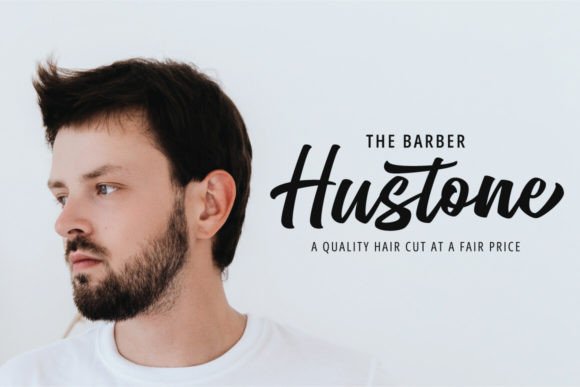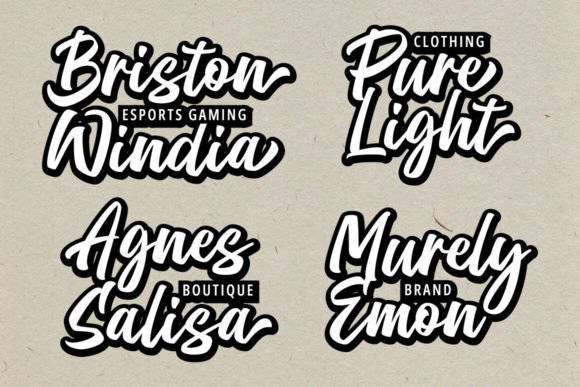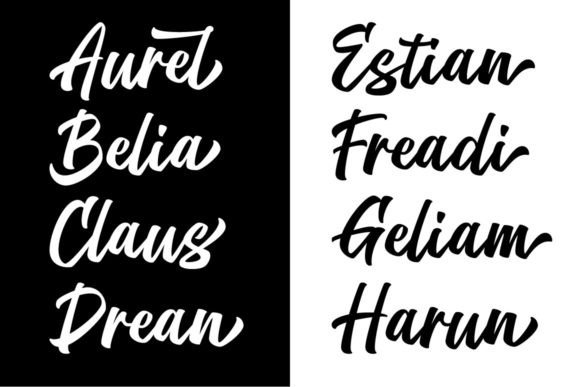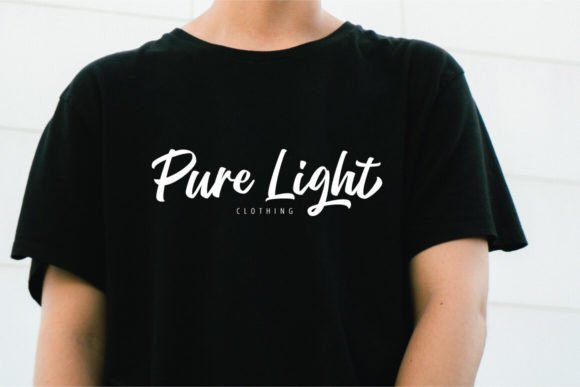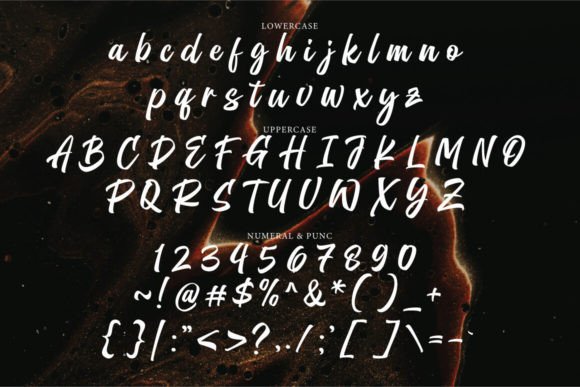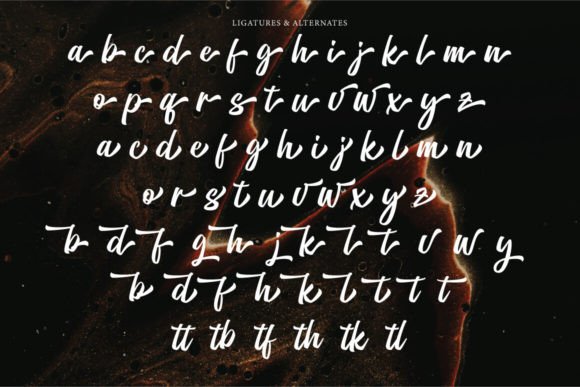
Introducing Erival Script Font: Elevate Your Designs with Modern Flair
In the world of typography, fonts play a crucial role in conveying the tone and personality of a design. For designers and crafters looking to add a touch of modern fashion and streetwear to their projects, Erival Script Font is an excellent choice. This unique font draws inspiration from the latest trends in fashion and streetwear, blending them with a distinctive hand-lettering style to create a truly eye-catching effect.
The Unique Features of Erival Script Font
Erival Script Font stands out from the crowd with its lively baseline, which adds a dynamic touch to any design. This feature alone sets it apart from more traditional fonts, giving it a youthful and energetic vibe that’s perfect for brands and designers looking to make a statement. But that’s not all – Erival Script Font also comes with a matching marker font and a set of extra swashes, providing users with a wealth of creative possibilities.
Whether you’re working on a logo, quote, packaging, header, poster, merchandise, social media post, or greeting card, Erival Script Font is an excellent choice. Its versatility and unique style make it suitable for a wide range of design projects, from fashion and lifestyle brands to craft and DIY applications. The font’s modern and trendy feel ensures that your designs will stand out in a crowded market, grabbing the attention of your audience and leaving a lasting impression.
What Makes Erival Script Font So Special?
- Modern Fashion Inspiration: Erival Script Font draws inspiration from the latest trends in modern fashion and streetwear, giving it a fresh and contemporary feel.
- Unique Hand-Lettering Style: The font’s hand-lettering style adds a personal touch to your designs, setting them apart from more generic and traditional fonts.
- Lively Baseline: The dynamic baseline of Erival Script Font adds a playful and energetic vibe to your designs, making them more engaging and attention-grabbing.
- Matching Marker Font: The inclusion of a matching marker font provides users with even more creative options, allowing for a range of design possibilities.
- Extra Swashes: The set of extra swashes included with Erival Script Font gives designers the freedom to experiment with different styles and effects, adding an extra layer of customization to their projects.
Tips for Using Erival Script Font Effectively
To get the most out of Erival Script Font, here are a few tips to keep in mind:
- Experiment with Different Sizes: Erival Script Font looks great in a range of sizes, from small and delicate to large and bold. Experiment with different sizes to find the perfect fit for your design.
- Play with Swashes: The extra swashes included with Erival Script Font are a great way to add some extra flair to your designs. Try experimenting with different swashes to find the perfect look.
- Mix and Match with Other Fonts: Erival Script Font pairs well with a range of other fonts. Try mixing and matching it with different fonts to create a unique and eye-catching effect.
Erival Script Font is a versatile and stylish font that’s perfect for designers and crafters looking to add a touch of modern fashion and streetwear to their projects. With its unique hand-lettering style, lively baseline, and matching marker font, it’s an excellent choice for a wide range of design applications. Whether you’re working on a logo, quote, packaging, or social media post, Erival Script Font is sure to elevate your designs and leave a lasting impression on your audience.